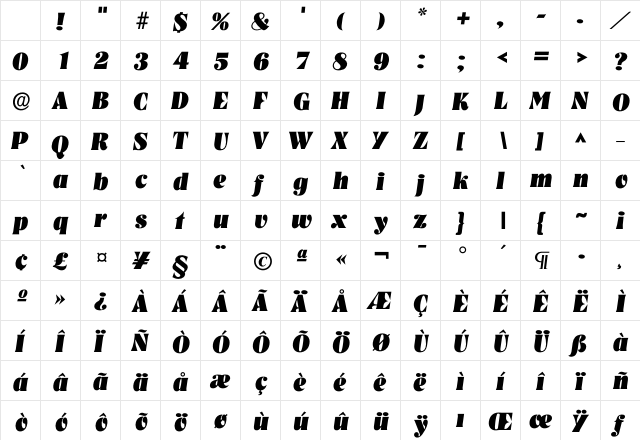
Complete Inashville Heavy glyph index. Displaying only characters natively supported by Inashville Heavy font.
Inashville is a composed and adaptable typeface that performs quietly and consistently across a wide range of design contexts.